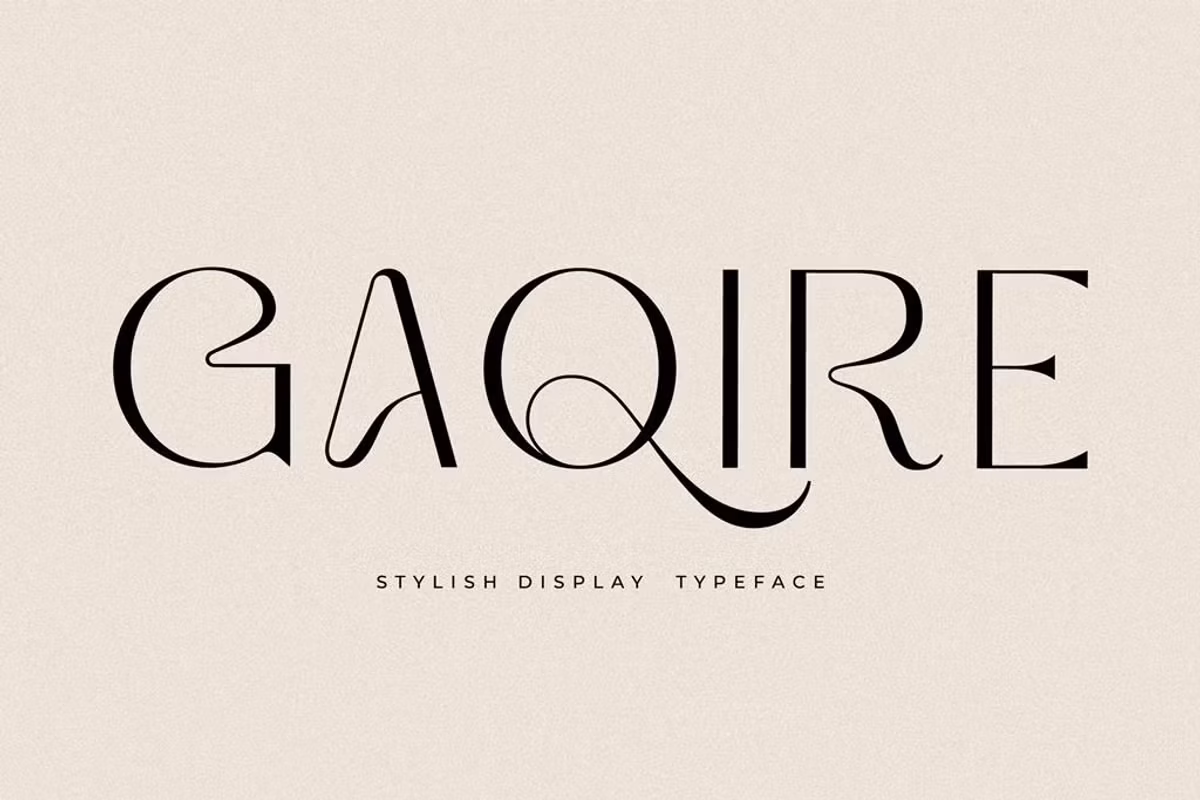
Gaqire Stylish Display Typeface Free Download
Gaqire Stylish Display Typeface Free Download is a bold and artistic font designed to elevate your visuals with flair and sophistication. Featuring high contrast strokes, unique letterforms, and a luxurious modern feel, Gaqire is perfect for fashion branding, editorial titles, product packaging, and upscale promotional materials. Its eye-catching design makes every word feel like a statement.
This typeface combines elegance with a creative edge, offering both beauty and functionality. Whether you're creating magazine spreads, logos, or digital content, Gaqire Stylish Display Typeface Free Download brings a distinctive voice to your work. Its dramatic details and stylish curves make it ideal for high-impact visuals that leave a lasting impression.